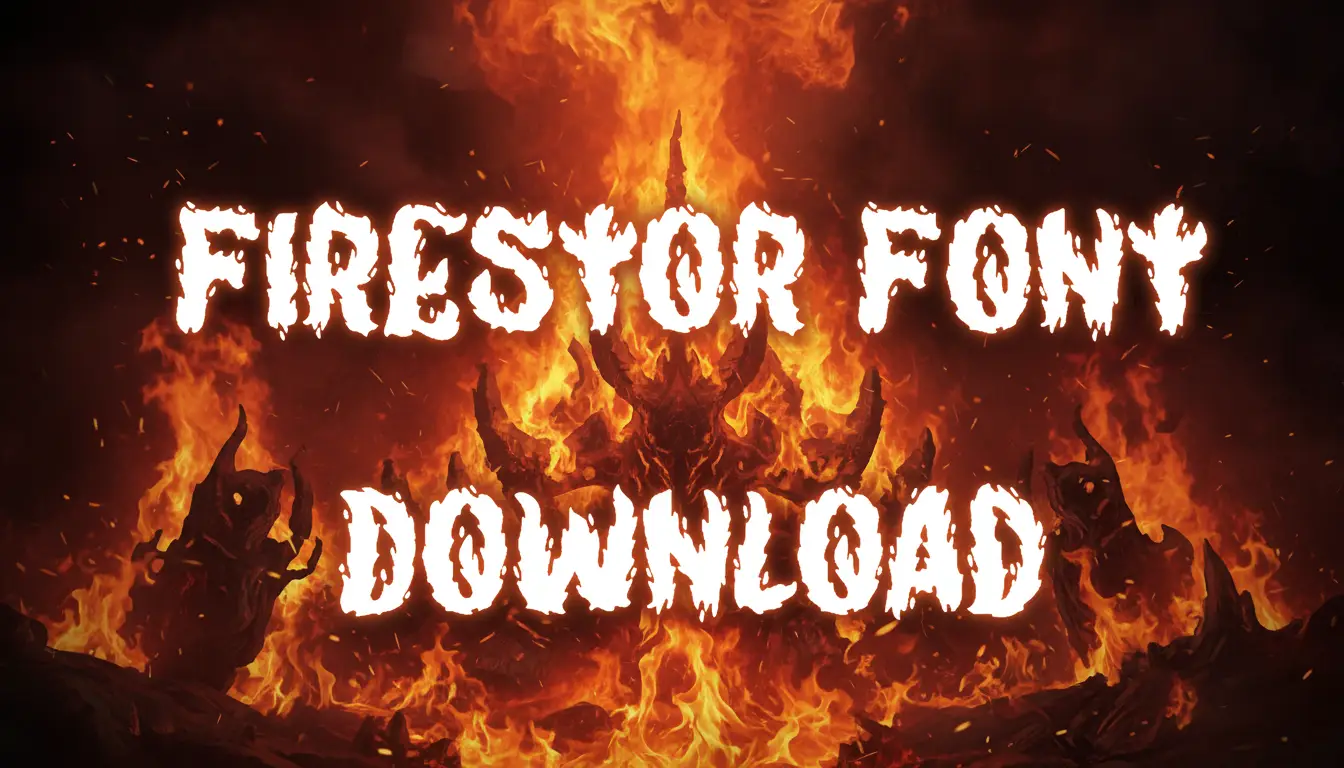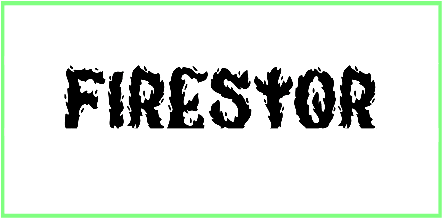
Firestor Font
Firestor
Firestor is a fancy font designed by Rian Rahardi and published by Creatype Studio Co. It's a decorative display font with plenty of personality, made to grab attention. It's a free download, and you can try it with your own text in the preview above first.
What You Can Type With Firestor
You get every letter from A to Z in both cases and all the numbers from 0 to 9, which means Firestor can handle full sentences, dates and prices. Common punctuation such as &, !, ? and # is included as well. It doesn't include accented letters such as é or ñ, which makes it an English-only font.
Where Firestor Works Best
Designers usually reach for fonts like Firestor when they're making posters, logos and eye-catching headlines. Use it for one standout word or headline and let simpler fonts handle the rest.
Does Firestor support accented letters?
No. Firestor has no accented letters such as é, ñ or ü, so it's best for English text.